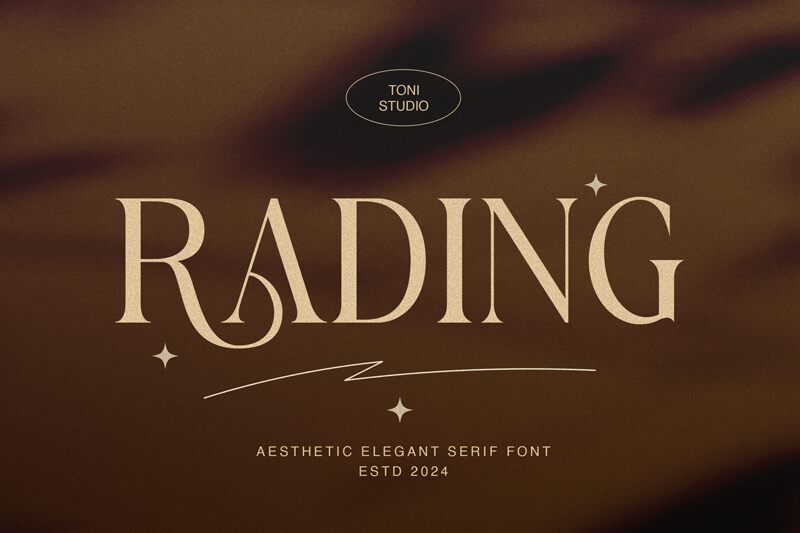
Rading
Rading, a captivating serif font designed by ToniStudio, exudes a timeless elegance that commands attention. Its refined letterforms and subtle flourishes create a sophisticated ambiance, inviting the viewer to immerse themselves in the artistry of the written word. The balanced proportions and harmonious contrast between thick and thin strokes lend an air of refined sophistication, making Rading a versatile choice for a wide range of design applications.
This font's versatility shines through its ability to seamlessly adapt to diverse design contexts. From editorial layouts to luxury brand identities, Rading's distinctive character adds a touch of refined distinction that elevates the overall aesthetic. Its legibility and adaptability make it a suitable option for both print and digital mediums, allowing designers to craft cohesive, visually striking compositions.